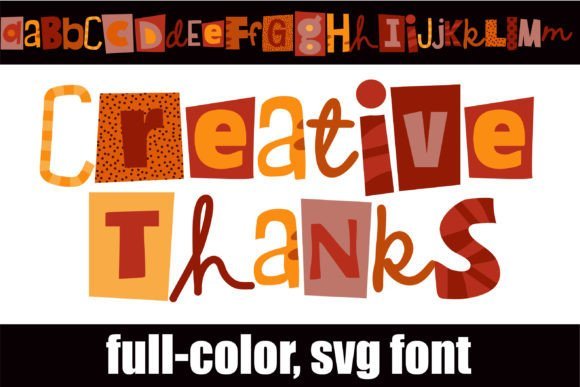
As you’re sipping your pumpkin spice latte and planning your Thanksgiving decorations, you’re probably thinking about how to make this year’s celebration truly special. You want your table setting, cards, and gift tags to reflect the warmth and love of the season. That’s where the Creative Thanks Font comes in – a beautiful, full-color font that adds a pop of color and creativity to your designs.
This font is a game-changer for designers and crafty enthusiasts alike. With its vibrant Thanksgiving color palette and creative lettering, you can add a personal touch to your projects. Whether you’re creating invitations, gift tags, or social media posts, the Creative Thanks Font is the perfect way to express your gratitude and style.
Creative Thanks Font Key Features
- Font Styles: This font includes various styles such as Regular, Italic, Bold, and Bold Italic, providing flexibility for different design needs.
- Unique Characteristics: The Creative Thanks Font features a unique, hand-drawn design with subtle texture and flair, making it perfect for adding a personal touch to designs.
Design Review: Creative Thanks Font
At first glance, Creative Thanks Font seems like a promising option for adding a personal touch to your designs. Here are some aspects where it shines:
- ✨ Unique and playful letterforms that can add a touch of whimsy to your designs.
- ✨ A wide range of language support, making it a great option for multilingual designs.
- ✨ Excellent legibility, even at smaller font sizes, which is a must for any font.
However, there are some limitations that might make it less ideal for certain projects:
- ⚠️ Limited stylistic flexibility, which might make it difficult to customize to your taste.
- ⚠️ The font’s irregularities can sometimes make it harder to read, especially in large blocks of text.
Overall, Creative Thanks Font is a solid choice for projects where you want to add a bit of personality and whimsy. While it may not be the best option for formal or corporate designs, it can be a great fit for social media graphics, advertisements, or other creative projects where you want to stand out.
The “Creative Thanks Font” is ideal for: